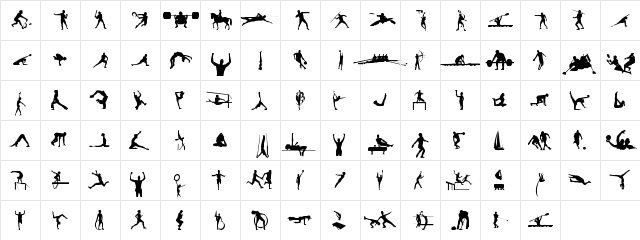
Sports tfb Regular
Design Context for Sports tfb Typeface
Sports tfb brings high-energy athletic personality to the page — its confident, muscular forms are built for impact.
Built for sports team identities, athletic apparel, event posters, and high-energy promotional material.
Font Pairing: Use alongside a condensed or geometric sans for supporting copy — keep the pairing bold, functional, and free of ornament.
Pro Tip: Sports tfb thrives on contrast — try it large, bold, and tight against a clean background for maximum visual impact.